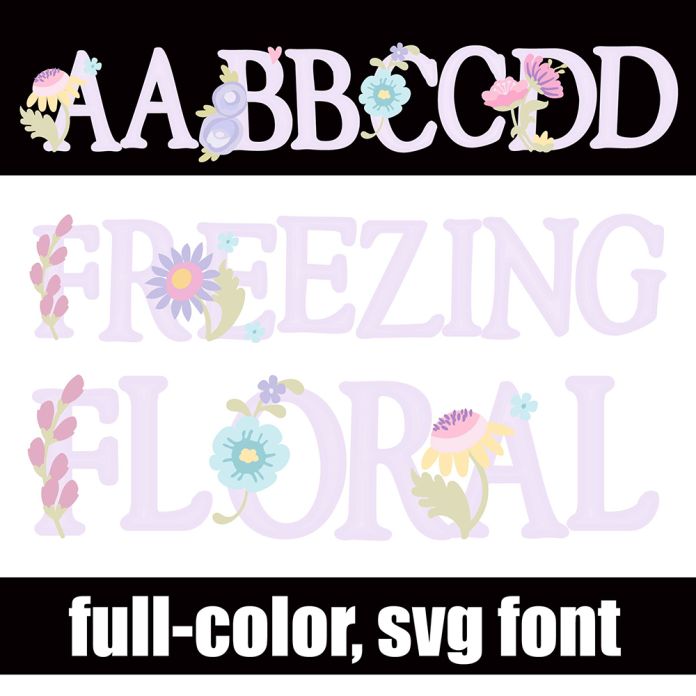
This full-color font a whimsical, crafty serif with florals on the uppercase. There is an alt case with an additional color of each letter. This font works best for titles, displays, posters and more. Please note color fonts will show as black in non compatible programs. This font type is compatible with Silhouette Studio.